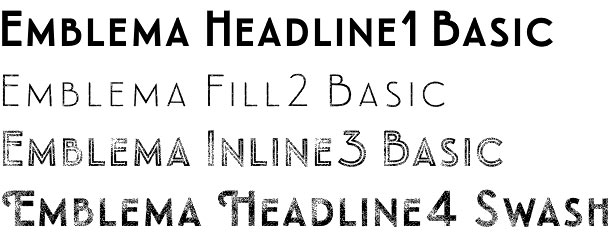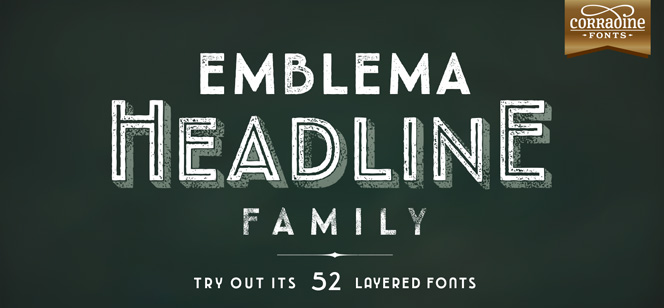
Emblema Headline
Emblema Headline font family is the latest addition to Corradine font collection. Using the geometry and skeleton of the existing Emblema 65 family, this hot new one is also under the style of Art Deco but it is also breaking the boundaries of usual with the impressive number of 52!!! fonts, featuring different weights and styles like inline and fill, shadow and texture effect, swashes, etc. In fact Emblema Headline is a multilayer type platform or type collection with special dedication – headlines and display use. You could easily go thru different styles and find best combinations for your work – needless to say that the fills fit perfectly to inline style as well as the shadows and textures. You have nearly countless number of combinations inside the family but you could also work with colour, paper, etc. and get the maximum of this family. All in all Emblema Headline is for those types of design where you need vintage and authentic style for your typography. One that is reproducing the beauty of letterpress and low quality printing allowing you to turn back the time to the days of Art Deco. Emblema Headline is for large size signboards, t-shirts artworks, based on typography, attractive vintage posters but you could also use it for internet banners, websites, e-books etc because of its optimized legibility, fine contrast and dedicated uppercase only design.
Designer: Duván Cárdenas